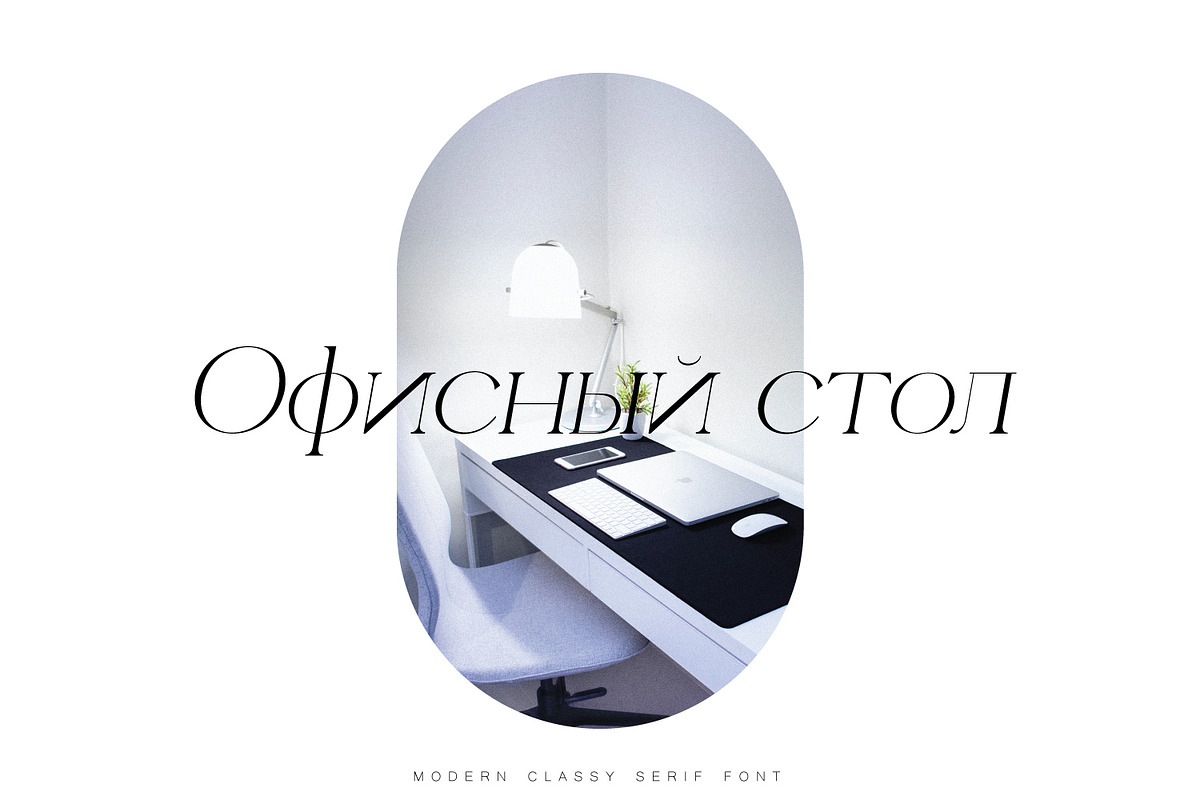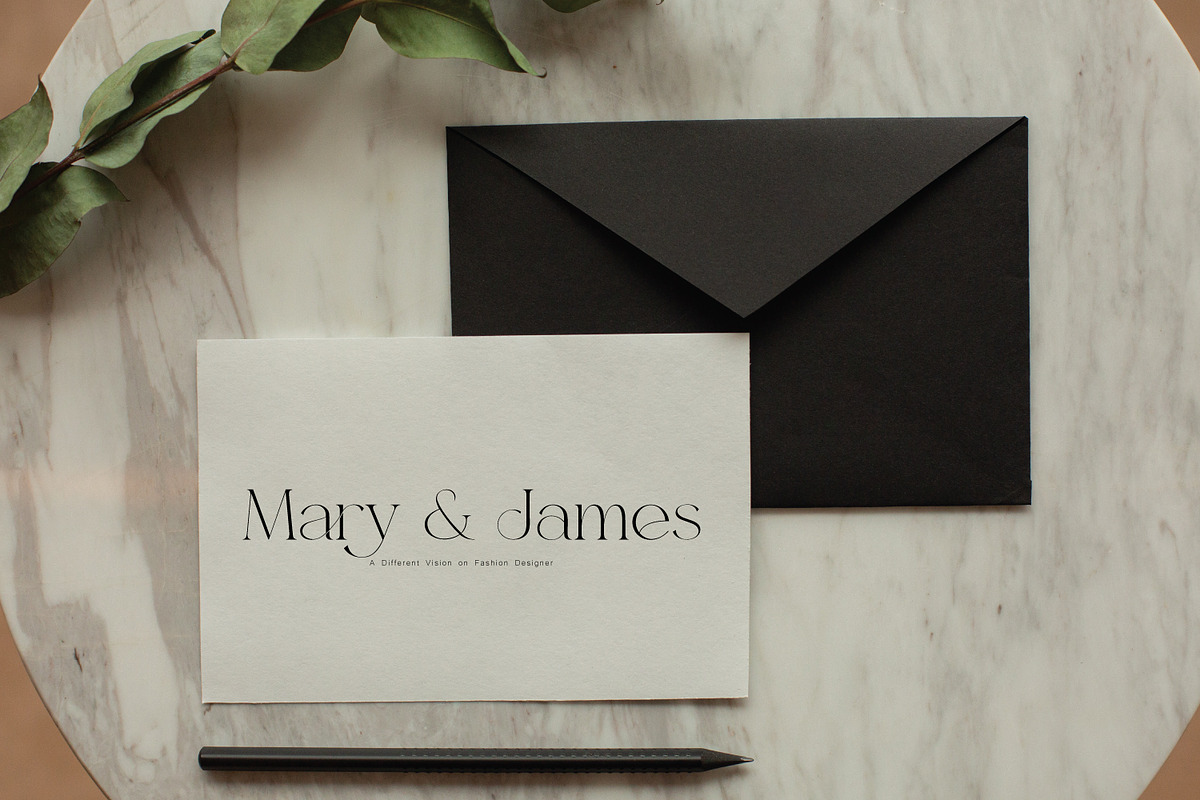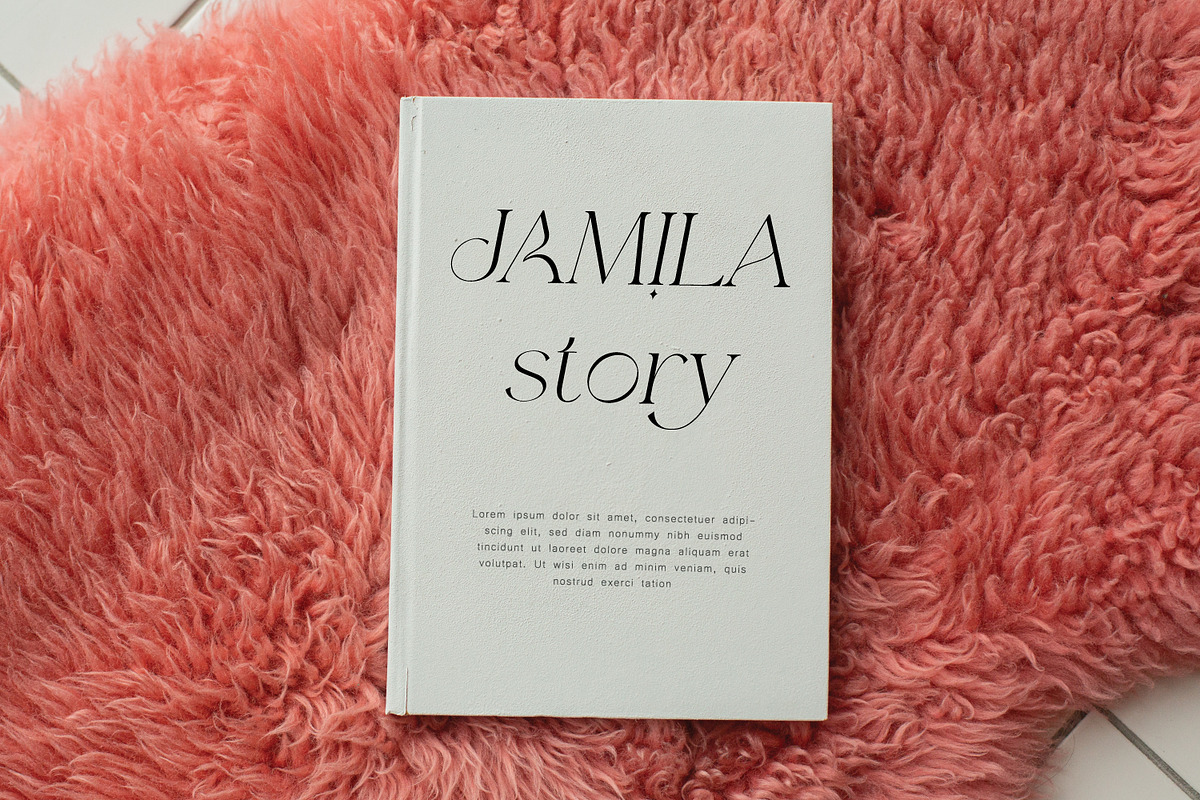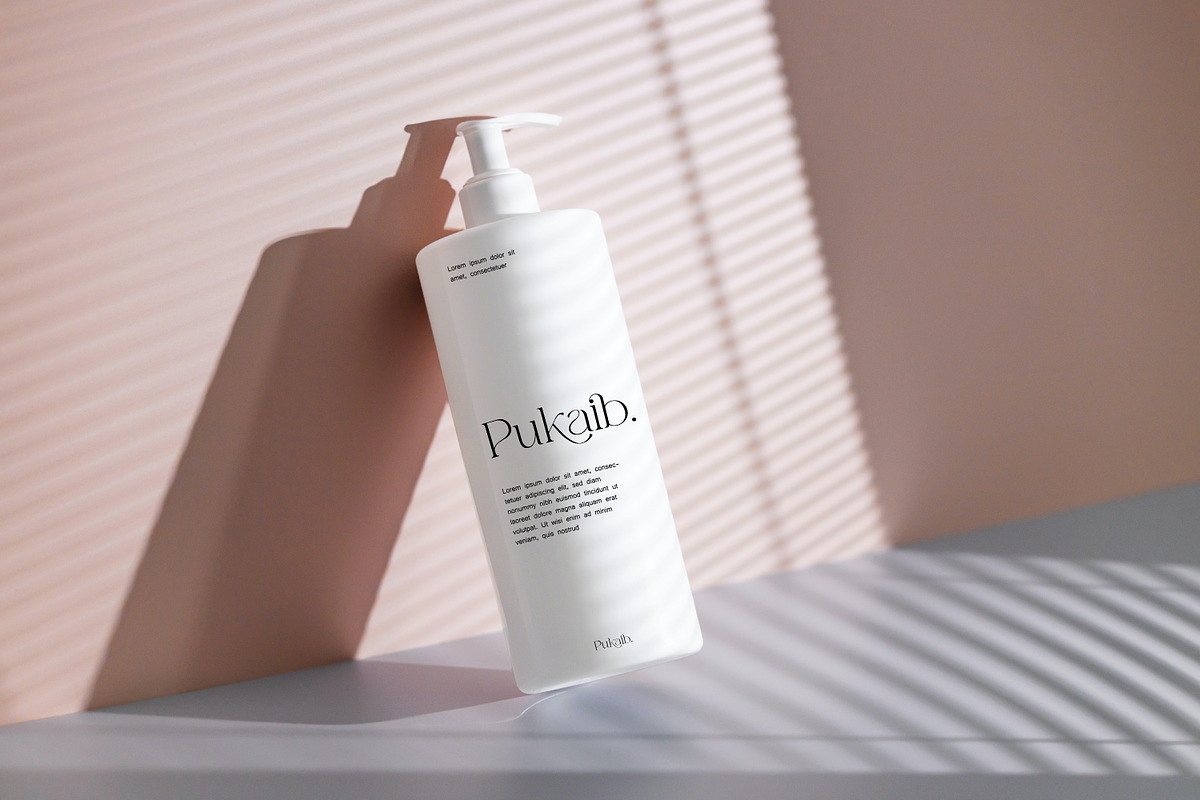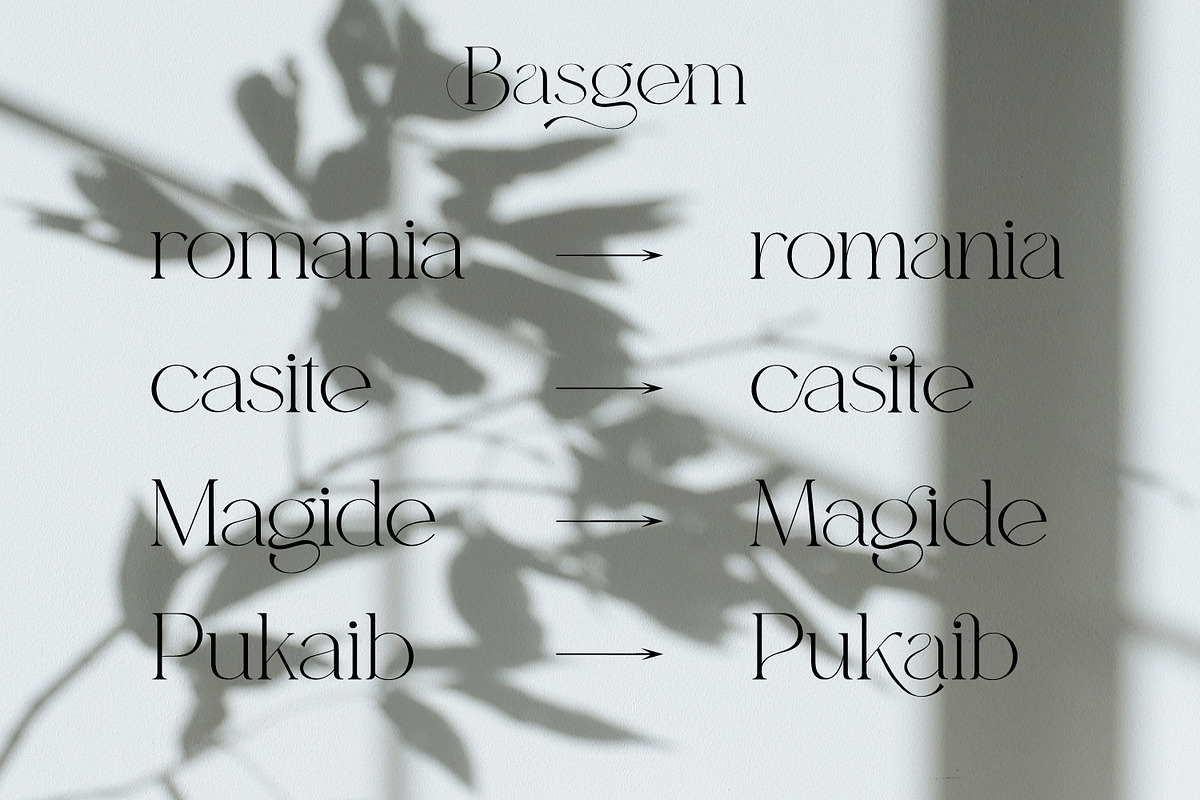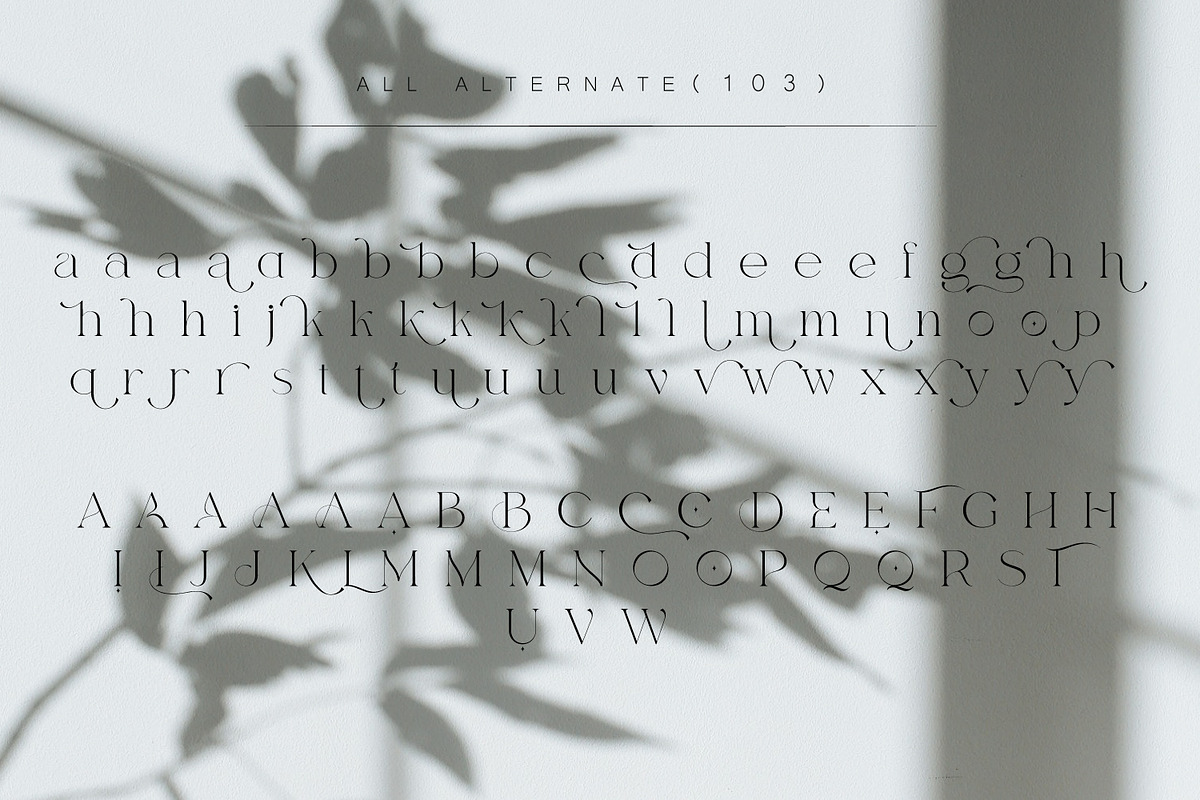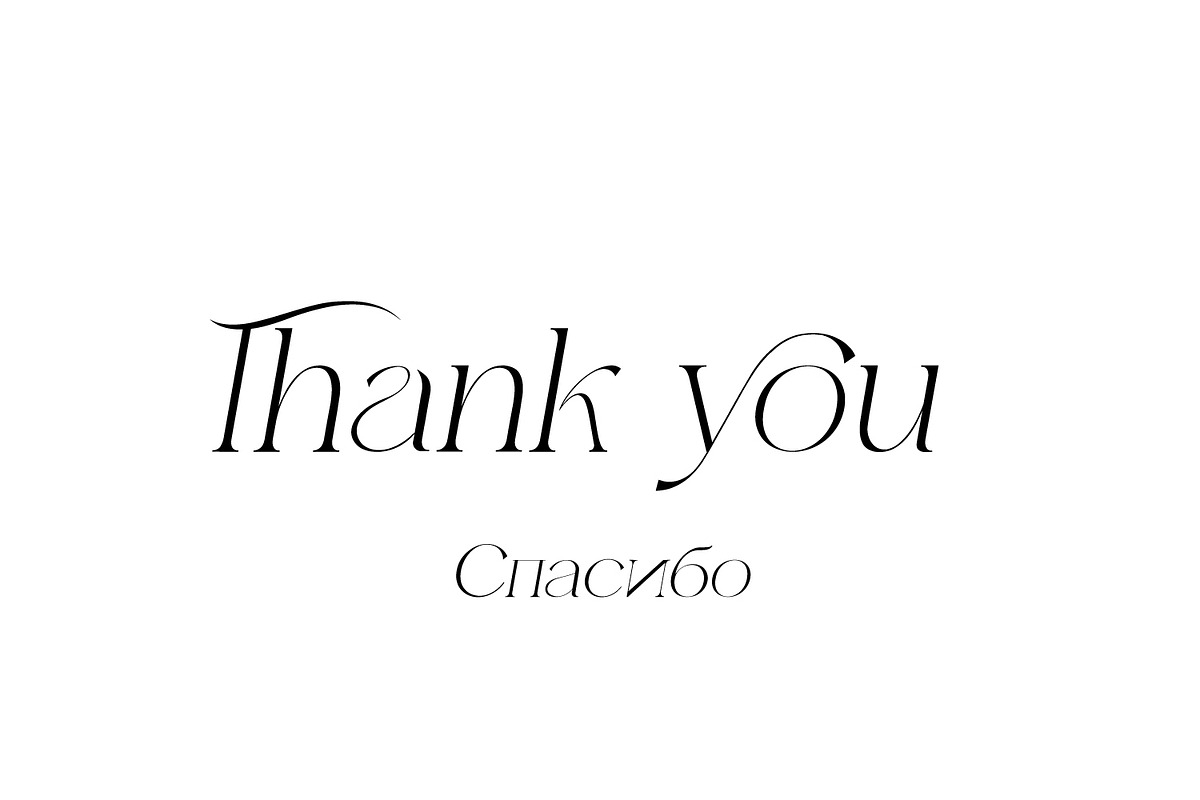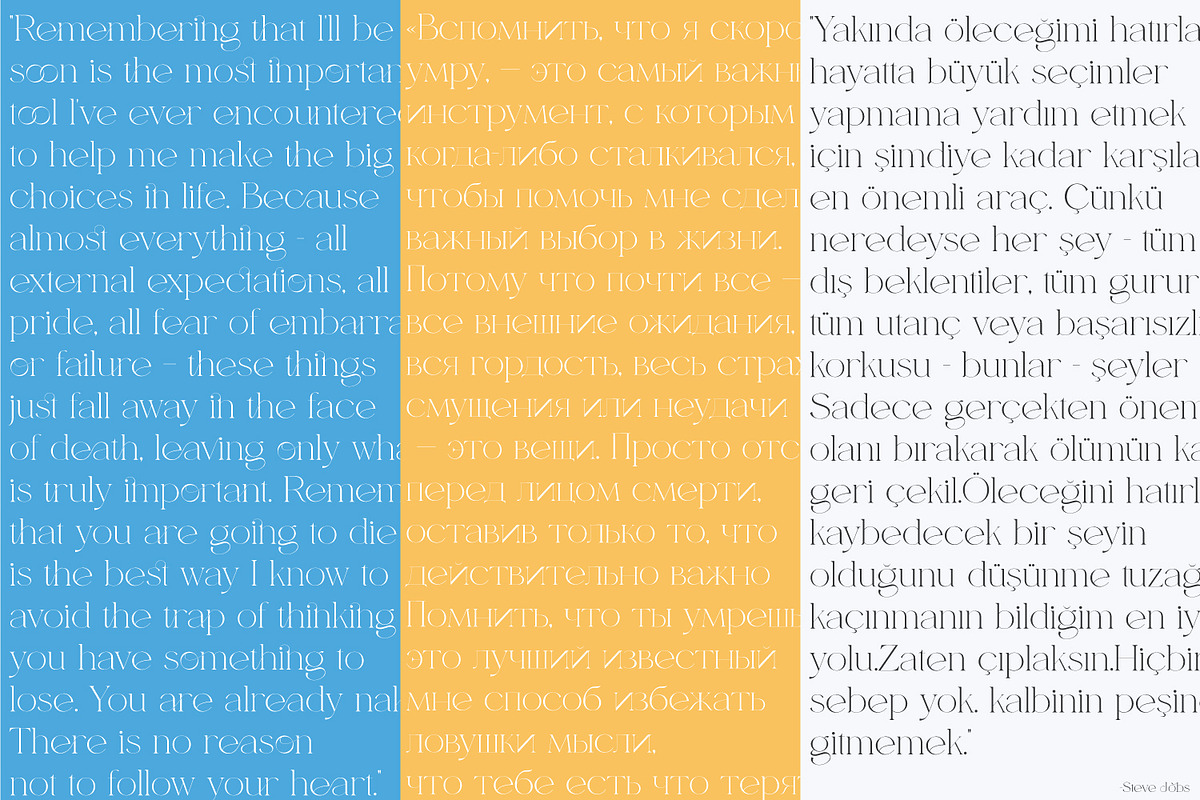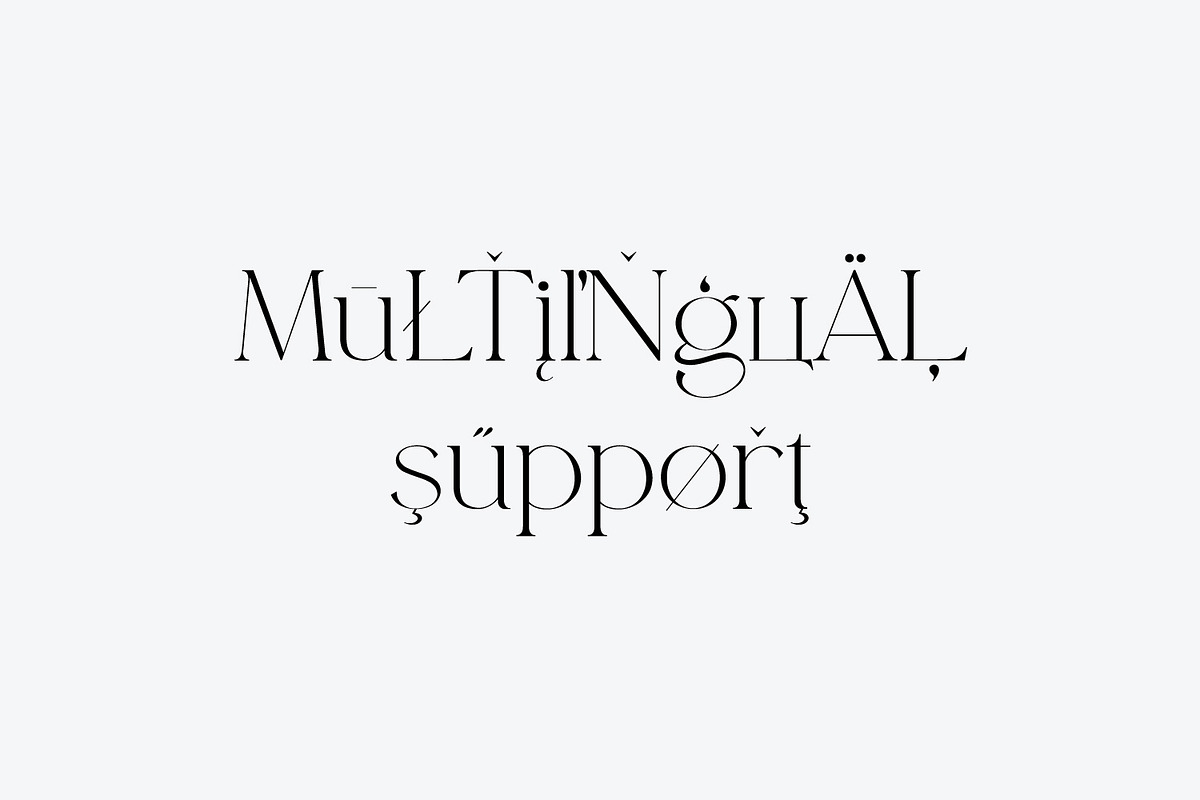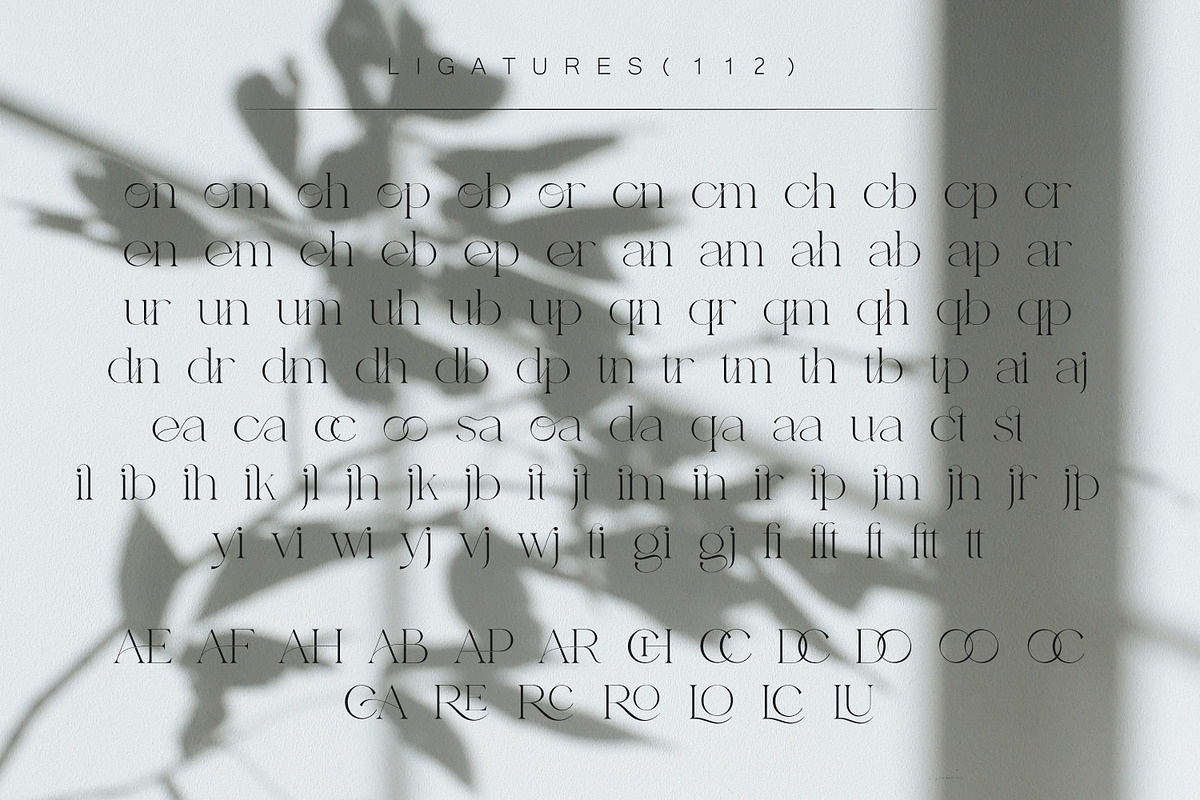
Basgem – Modern Serif Typeface
Basgem is a modern classy ligature serif typeface comes with joining ligatures that give it a fancy and unique style. This awesome font is perfect for branding, logos, invitation, watermark and so much more.
Basgem typeface comes with regular, italic, Condensed and Condensed italic font styles. Uppercase & lowercase letters, numbers, punctuation, ligatures, alternates and multilingual support.
OpenType Features
- Kerning
- Stylistic Sets